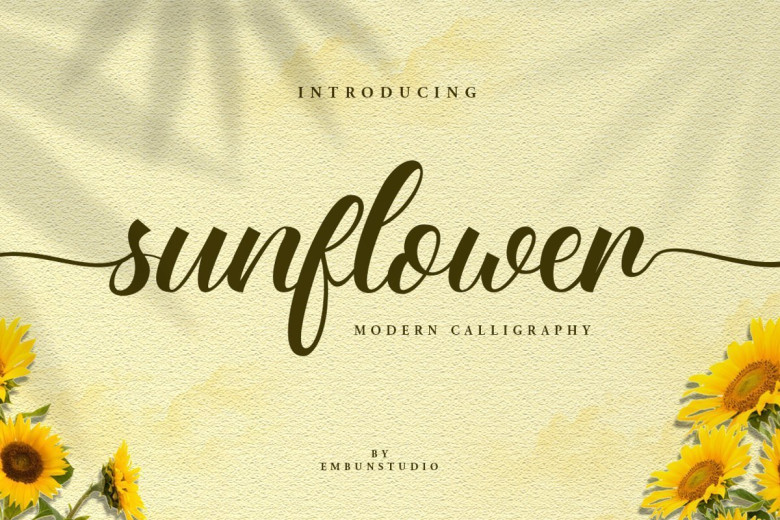
Sunflower Fields Calligraphy Font
Sunflower Fields Font is a beautiful calligraphy typeface with many alternative styles, this font looks natural,luxury, elegant and perfect for any extraordinary project. Sunflower Fields Font is suitable for various products such as invitations, product packaging, quotes, product design, crafting, labels, photography, watermarks, logos & branding.